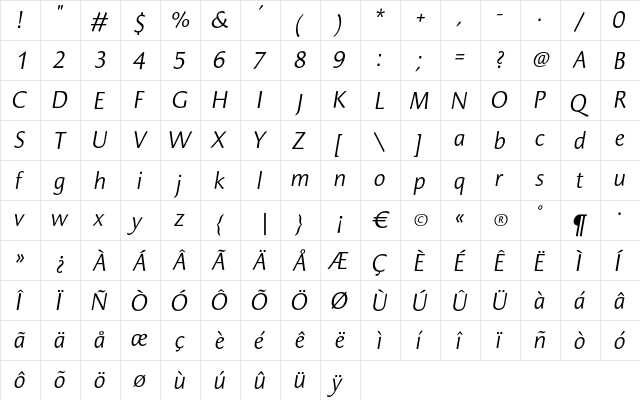
CarrefourSans MediumItalic
Design Context for CarrefourSans Typeface
CarrefourSans is a composed and adaptable typeface that performs quietly and consistently across a wide range of design contexts. The slanted form adds forward momentum and visual energy.
Pro Tip: Use CarrefourSans for emphasis, pull quotes, and subheadings where its slanted energy can add rhythm to the layout.